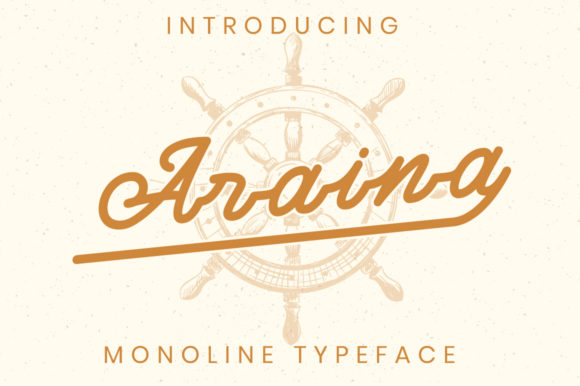
Presenting Araina Font, a captivating script font family that weaves together timeless sophistication with a touch of modern flair. Crafted by the creative minds at hi.letterseal, Araina invites you to elevate your designs with its graceful handwritten charm.
Adorned with elegant curves and sweeping strokes, Araina embodies the essence of classic calligraphy with a contemporary twist. Each letter dances across the page, exuding a sense of effortless beauty and timeless appeal. Whether you're crafting wedding invitations, designing logos, or creating social media graphics, Araina adds a touch of sophistication and charm to every project.
Step into a world of creative possibilities with Araina! Its versatile nature allows for endless applications, from heartfelt greetings to eye-catching marketing campaigns. Create stunning posters that leave a lasting impression, design apparel that speaks volumes, or add a personal touch to your digital content – Araina adapts seamlessly to your artistic vision.
Unleash your creativity and let Araina be your guiding light. Whether you're a seasoned designer or just starting your creative journey, this font is your gateway to captivating designs that resonate with your audience. Experience the magic of Araina today and let your imagination soar. Start your design journey now!